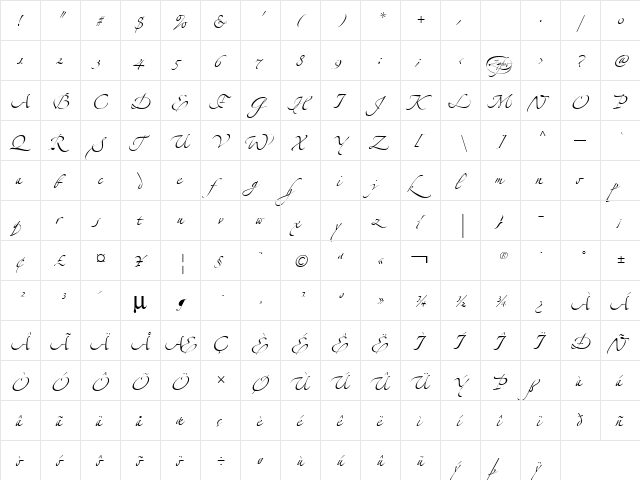
HW, Script - LinotypeZapfino2 Two
HW, Script - LinotypeZapfino2 brings a calligraphic fluidity to the page — its connecting strokes and expressive curves give it an unmistakably human quality.
Font Pairing: Combine HW, Script - LinotypeZapfino2 with a simple geometric sans for maximum contrast — the tension between flowing curves and clean structure is a classic typographic pairing.
Pro Tip: Pair HW, Script - LinotypeZapfino2 with a clean sans-serif for supporting text. The contrast between fluid script and geometric structure creates an elegant typographic hierarchy.